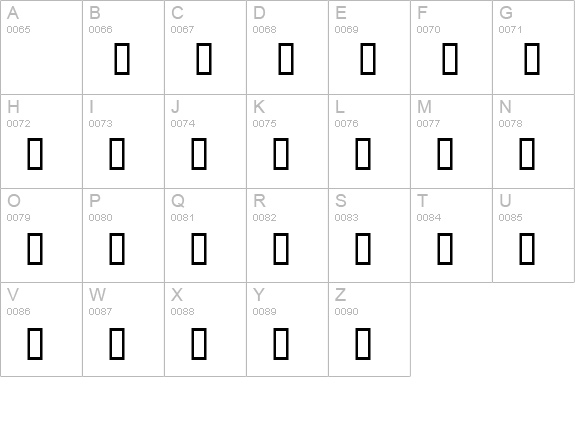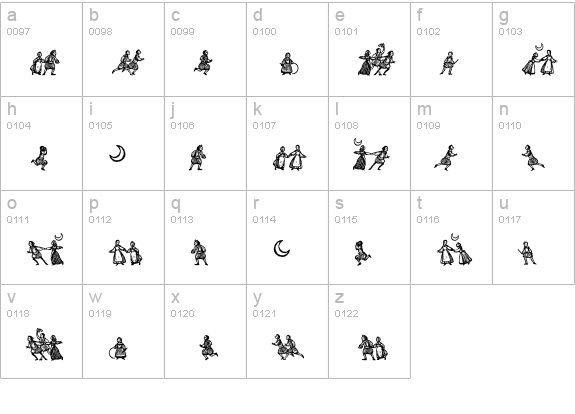
little people Font Details
Introducing the charming and whimsical Little People font, a delightful typeface designed to bring a touch of playfulness to your projects. This font is perfect for adding a touch of magic to children's books, invitations, posters, and more. The adorable, hand-drawn characters will captivate your audience and create a sense of wonder. Best of all, the Little People font is available for free download at FontsMarket.com. Yes, you read that right – you can add this enchanting font to your collection without spending a dime! So why wait? Download the Little People font today and let your creativity soar!